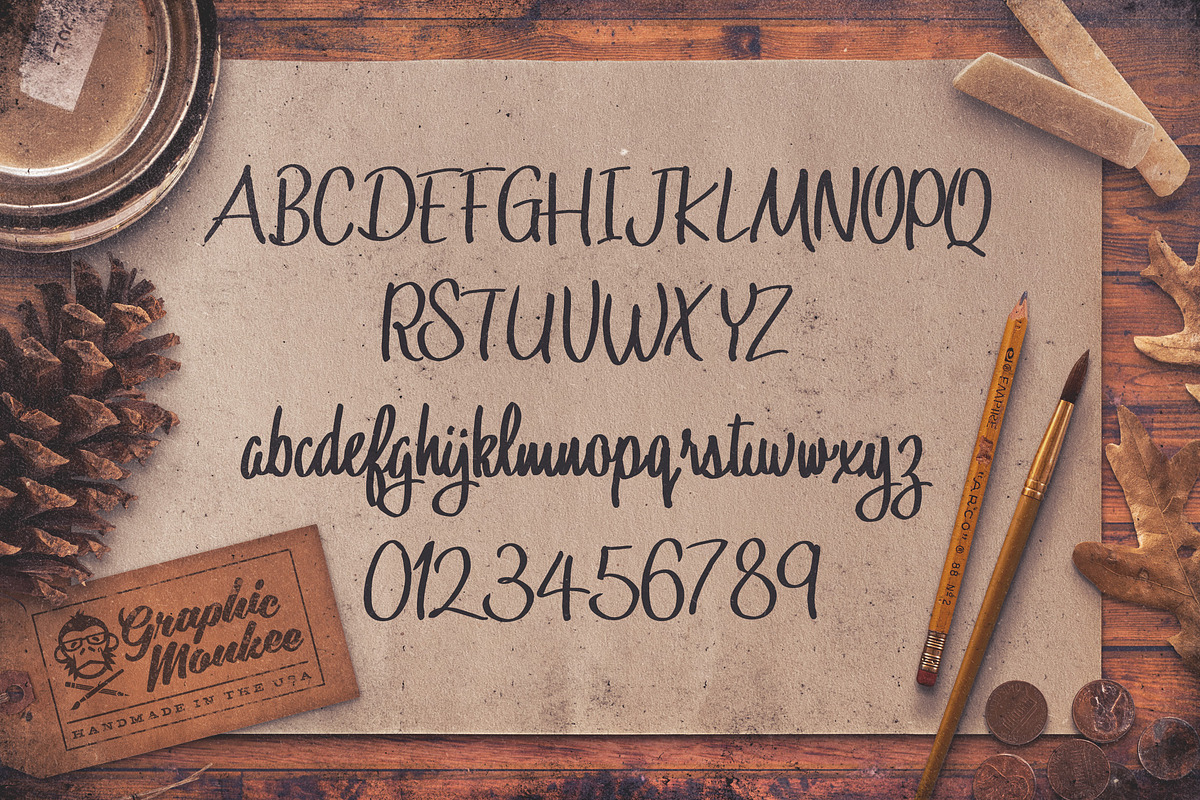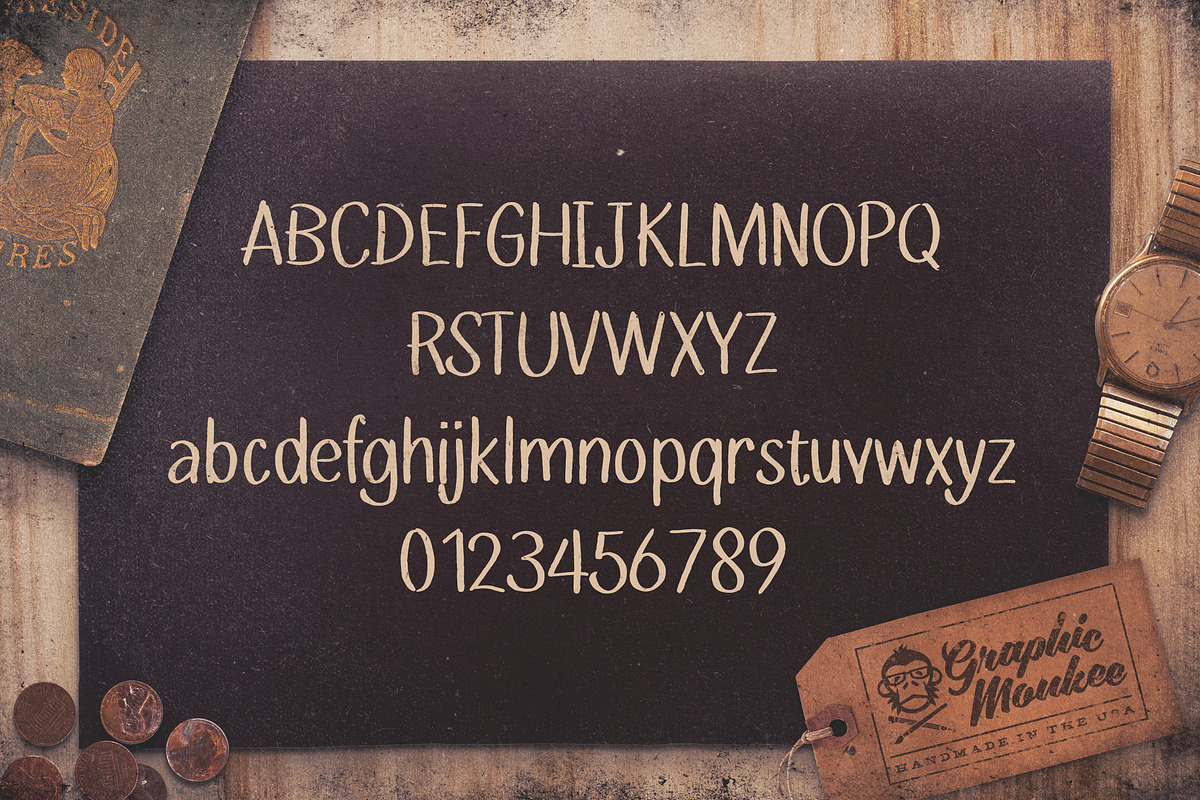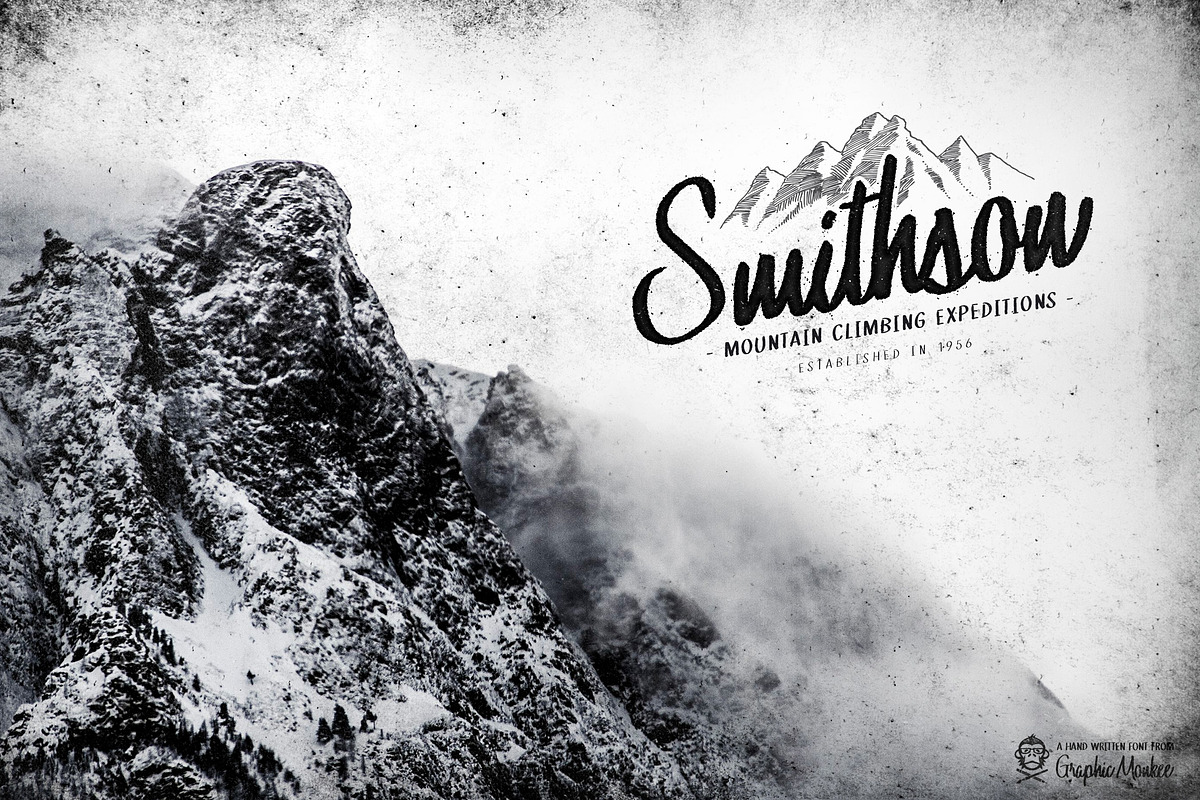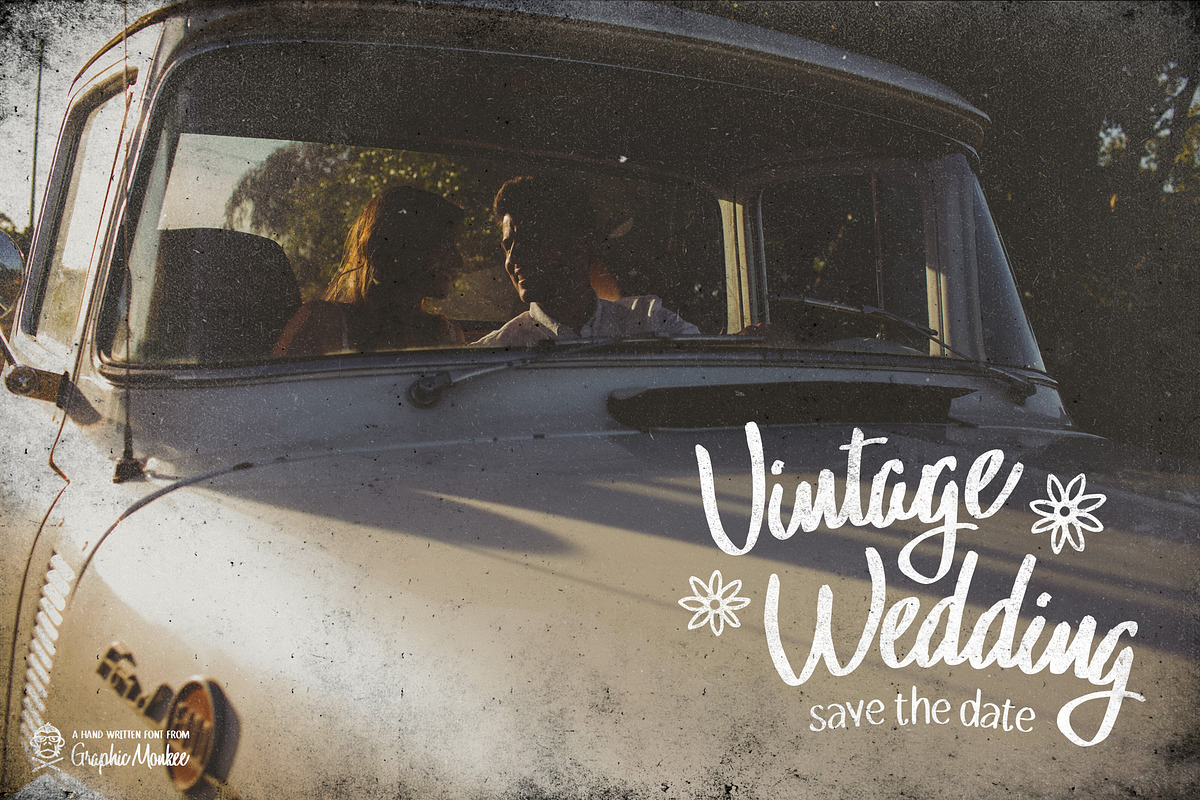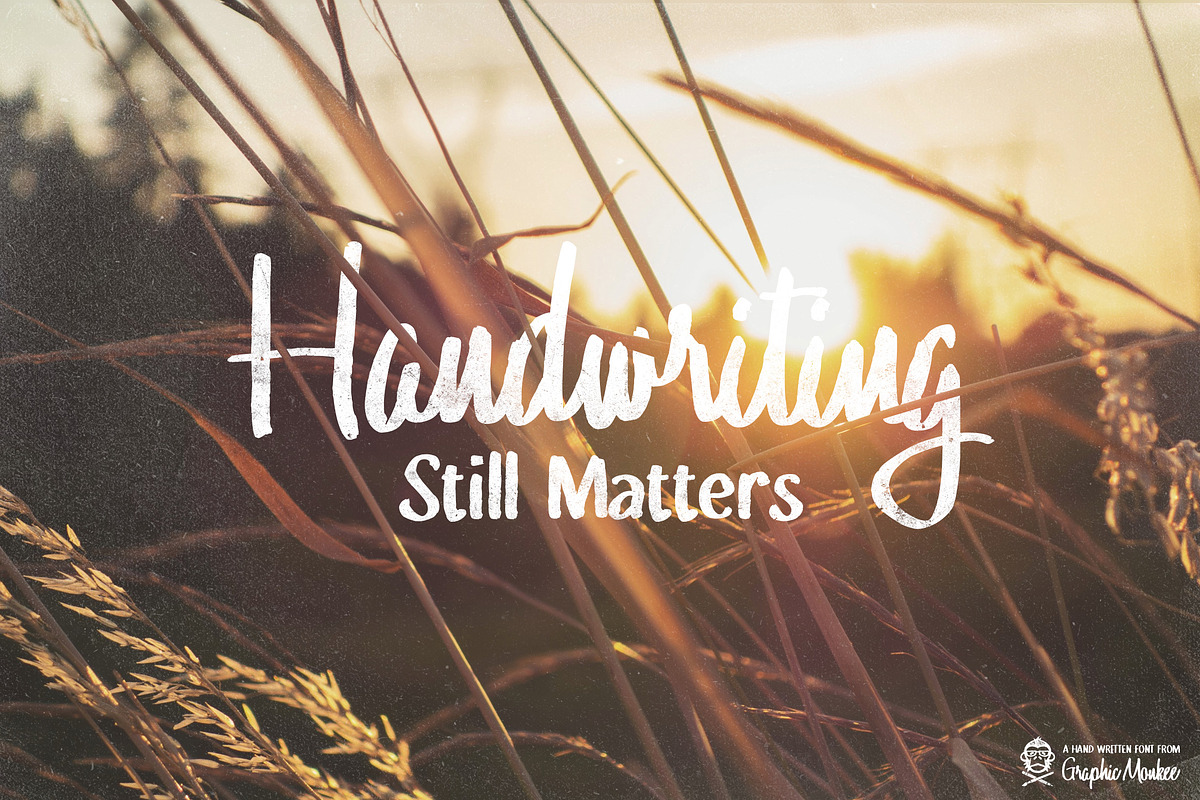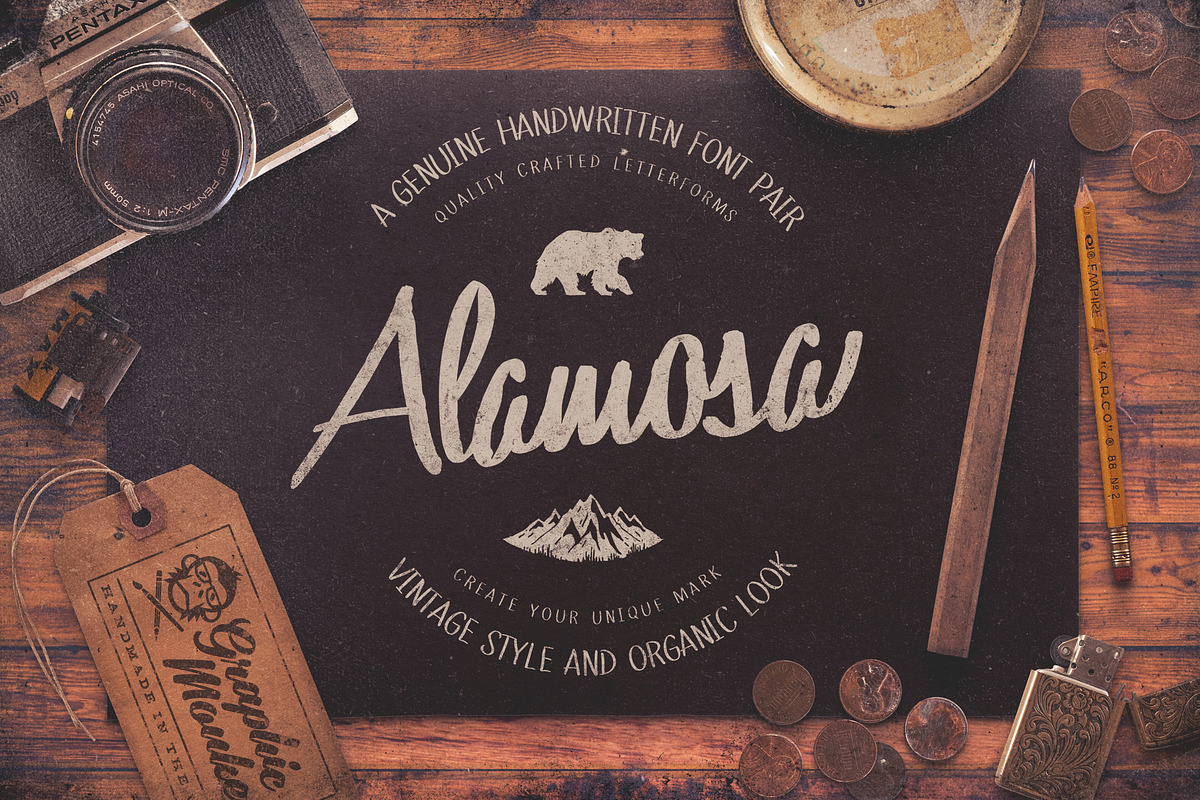
Alamosa - Handwritten Font Pair
Alamosa - Handwritten Font Pair by Nathan Brown is a font selected for branding, posters, packaging, typography.
- The download includes 3 fonts Alamosa Script Alamosa Sans Medium Alamosa Sans Bold Try this font in your next vintage badge design and watch
Alamosa - Handwritten Font Pair by Nathan Brown fits naturally into Branding, posters, packaging, typography.